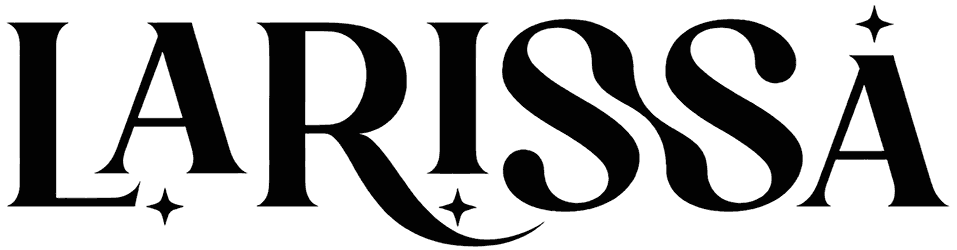
Larissa Font
Larissa is a static font with signs of order and calmness that has all the intrinsic qualities of ligature fonts and is based on a standard geometric formula without lowercase letters.
This serious and powerful font can create different meanings for various functions and applications, and is compatible with different elements. If you want to use a font to travel back in time in your posters, movies, or serious projects, Larissa can be very useful.